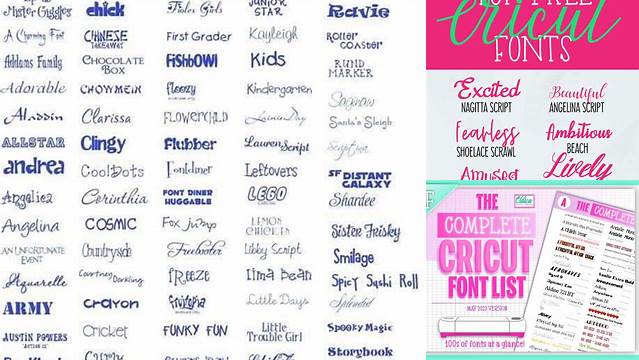
Cricut Font Guide: Unleashing Your Creativity
Alright, so you're looking for a Cricut font list PDF free download? Awesome! First things first, why is a font list so darn helpful? Think of it as your crafting sidekick. It's a curated collection of fonts that you can browse through quickly, making it super easy to find the perfect typography for your project. No more endless scrolling through Cricut Design Space or your computer's font library! A well-organized PDF can give you a visual preview of each font, showcasing its different styles and characters, helping you envision how it will look on your final project. Plus, many of these PDFs come with extra details, such as licensing information and where to download the fonts if they're not already available in Cricut Design Space. This is especially important if you want to use the font for commercial purposes, such as selling items you create. With a Cricut font list PDF free download, you have all the information you need at your fingertips. Another amazing benefit is the time-saving aspect. Imagine trying to find a specific font by going through the entire Cricut library. It could take forever! With a PDF, you can quickly scan through different font styles like serif, sans-serif, script, and decorative fonts. Once you find a font you like, you can either search for it directly in Cricut Design Space, or if it's a font you need to download, the PDF will tell you where to find it. It's like having your own personal font assistant! The key to choosing the right font is to consider the project you are working on. Is it a sign for your kitchen? Then a classic serif font might look great. Or are you creating a fun birthday card? Maybe a whimsical script font would be a better choice. A Cricut font list PDF free download will show you a wide array of fonts, allowing you to find the perfect style for every occasion. The PDF format itself is incredibly useful, too. You can download it to your computer or phone, print it out and keep it handy in your crafting space, or even save it to the cloud for easy access on any device. This flexibility is a huge advantage, especially when you want to quickly reference a font without having to open Cricut Design Space. Ultimately, having a Cricut font list PDF free download is a smart way to streamline your crafting process, inspire your creativity, and make your projects look amazing. It's a small investment of time that pays off big in terms of your crafting efficiency and the quality of your designs. So, let's get to those free downloads!
Serif Fonts and Their Elegance: Perfect for Cricut Projects
When it comes to crafting with your Cricut, understanding font styles is key. Serif fonts, with their delicate lines and elegant appearance, are fantastic choices for a wide range of projects. They are known for the small decorative strokes, called serifs, at the end of each letter, which gives them a classic and refined look. Choosing a serif font from a Cricut font list PDF free download can elevate your designs, adding a touch of sophistication and timeless charm. These fonts are excellent for projects that require readability and a professional aesthetic, making them perfect for things like invitations, signs, and personalized gifts. The best serif fonts are those that are versatile. For example, fonts such as Times New Roman, Garamond, and Georgia are popular choices because they are easily readable and available on most computers and within Cricut Design Space. However, a Cricut font list PDF free download will expose you to a wider variety of serif fonts, including more unique and decorative options that can make your projects truly stand out. Some serif fonts have thicker strokes, which make them well-suited for larger text, while others have a lighter, more delicate appearance, which works wonderfully for smaller details. Remember to consider the context of your project when selecting a serif font. Is it a formal occasion, like a wedding? Then a classic serif font with clean lines may be perfect. Or is it a more casual project, like a personalized tote bag? In that case, you might consider a serif font with a more playful or artistic style. Experimenting with different serif fonts from your Cricut font list PDF free download is a fun way to discover new favorites and create designs that reflect your personal style. Pay attention to the spacing between the letters and the overall balance of the font. Some serif fonts might need a little adjustment to make them work well in your Cricut projects. This might involve kerning, which is adjusting the space between specific pairs of letters, or adjusting the overall size and placement of the text. You'll get a feel for this as you practice and experiment. It's also important to test the font before you commit to using it for a large project. Cut a sample of the font using your Cricut machine to make sure it cuts cleanly and that the details are crisp and easy to weed. A Cricut font list PDF free download is more than just a list of fonts; it's a gateway to exploring a world of typographical elegance. By understanding the characteristics of serif fonts and using them creatively, you can enhance your Cricut projects and add a touch of sophistication.
Sans-Serif Fonts: Modern Choices for Cricut Designs
Sans-serif fonts are a cornerstone of modern design, and they're a fantastic resource for your Cricut projects. Unlike serif fonts, which have those little decorative strokes, sans-serif fonts are characterized by their clean, simple lines. This gives them a modern, minimalist look that's perfect for a wide range of applications. When you consult your Cricut font list PDF free download, you'll find a variety of sans-serif options that can instantly elevate your designs. The simplicity of sans-serif fonts makes them incredibly versatile. They are highly readable, making them an excellent choice for projects where clarity is important. This includes everything from labels and signs to informational graphics and personalized items. Some of the most popular sans-serif fonts, such as Arial, Helvetica, and Open Sans, are readily available within Cricut Design Space, making them easy to use. However, your Cricut font list PDF free download will open up a broader range of options, including unique and stylized sans-serif fonts that can help you achieve a more distinctive look. Think about the project you are working on. If you need a clean, uncluttered design, a basic sans-serif font is an excellent choice. If you're creating something that needs to be visually striking, such as a logo or a headline, you may want to consider a bolder or more stylized sans-serif font. The beauty of sans-serif fonts is that they work well in both large and small sizes. They can be easily scaled up for signs and banners, or scaled down for labels and stickers. This flexibility is a major advantage when working with your Cricut. When selecting a sans-serif font, it's important to consider the weight and style of the font. Some fonts are available in multiple weights, such as light, regular, bold, and black, which allows you to adjust the visual impact of your design. You can also find sans-serif fonts with different styles, such as condensed, italic, and outlined. Experimenting with different combinations of weight and style from your Cricut font list PDF free download will help you discover the perfect look for your project. Make sure you always test the font before committing to it for a large project. Cut a sample of the font with your Cricut machine to make sure it cuts cleanly and that the details are clear, especially if you are working with smaller fonts. By incorporating sans-serif fonts into your Cricut designs, you can achieve a modern, stylish, and versatile look. A Cricut font list PDF free download is a valuable resource that provides you with many options to explore the world of sans-serif typography and find the perfect font for your projects.
Script Fonts: Adding Elegance and Flair to Your Cricut Crafts
Script fonts are the stars of the show when you want to add a touch of elegance, personality, and flair to your Cricut crafts! They mimic handwriting and offer a beautiful, flowing aesthetic that's perfect for a variety of projects. Whether you are creating invitations, personalized gifts, or home décor, script fonts can make your designs truly special. A Cricut font list PDF free download is a treasure trove of these beautiful fonts, allowing you to explore a wide array of styles and find the perfect one for your needs. When exploring script fonts, you'll notice that they come in many different varieties. Some fonts have a more formal and traditional look, with elegant curves and flourishes. Others have a more playful and modern feel, with a more casual, handwritten style. A good Cricut font list PDF free download will provide examples of both types, enabling you to find a font that matches the overall mood and style of your project. Consider how the font flows when you are selecting a script font. Some fonts are designed to connect seamlessly, making it easy to create a cohesive look. Others might require a little extra tweaking to ensure the letters are properly aligned. Many Cricut users also love script fonts for their unique visual appeal. They can be used for monograms, names, and phrases, transforming ordinary objects into cherished keepsakes. However, using script fonts with your Cricut requires a little extra care. Because of their delicate lines, script fonts can sometimes be a bit trickier to weed (remove the negative space). So, before you start a larger project, make a test cut to ensure the font cuts cleanly and that you're happy with the results. You may also want to adjust the size of the font. Smaller fonts might be more difficult to weed, while larger fonts can show off the beauty of the script in all its glory. To get the most out of script fonts from your Cricut font list PDF free download, consider how you will layer them. You can use them as a focal point, pairing them with a more simple font, or use them to add decorative elements to your design. The options are endless. The best thing about script fonts is the personal touch they bring to your crafts. They create a sense of warmth, creativity, and uniqueness that other font styles can’t match. Script fonts have the power to transform your Cricut projects into works of art that will be cherished for years to come.
Decorative Fonts: Unleashing Creativity in Cricut Designs
For those who want to inject a ton of personality and pizzazz into their Cricut projects, decorative fonts are the answer! These fonts are all about fun, flair, and creativity, offering a wide array of styles that will make your designs pop. From whimsical characters to bold, graphic designs, there's a decorative font for every occasion. And what's the best way to explore this vast world? You guessed it – a Cricut font list PDF free download! A good font list will showcase a variety of decorative fonts, including fonts with unique shapes, patterns, and embellishments. Some fonts might have floral elements, while others have geometric designs. The possibilities are truly endless. Decorative fonts are perfect for projects that need a touch of playfulness or a unique visual appeal. They work great for birthday cards, party decorations, or even personalized gifts. Unlike the classic serifs and sans-serifs, decorative fonts are all about making a statement. Keep in mind that decorative fonts can sometimes be less readable than other font types. When choosing a decorative font from your Cricut font list PDF free download, make sure to consider the message you want to convey. If clarity is key, you might want to use a decorative font sparingly, or perhaps pair it with a simpler font for the body of your text. Also, think about the size of the font. Some decorative fonts might look best in larger sizes, where their unique details can truly shine. And as always, make sure to test the font with your Cricut before using it for a large project. Make a sample cut to ensure the font cuts cleanly and that the details are crisp and easy to weed. Another fantastic thing about decorative fonts is how they inspire creativity. They encourage you to think outside the box and to explore different design possibilities. If you're feeling adventurous, you can even combine different decorative fonts to create your own unique look. You could, for example, pair a font with whimsical characters with a bold font with geometric designs, creating a fun and eye-catching result. With a Cricut font list PDF free download in hand, the world of decorative fonts becomes an exciting playground for your Cricut crafts. You can find fonts that match any style, from the quirky and whimsical to the bold and graphic. Using decorative fonts is a great way to add a personal touch to your designs and create projects that will be remembered.